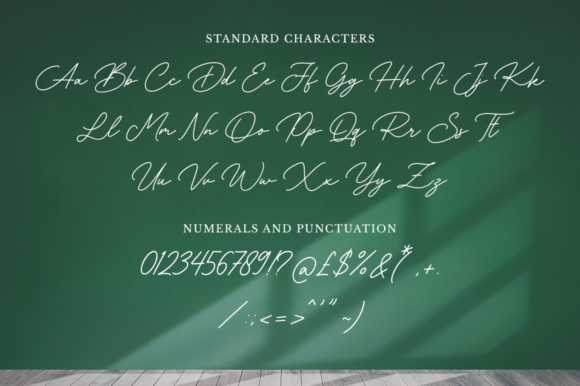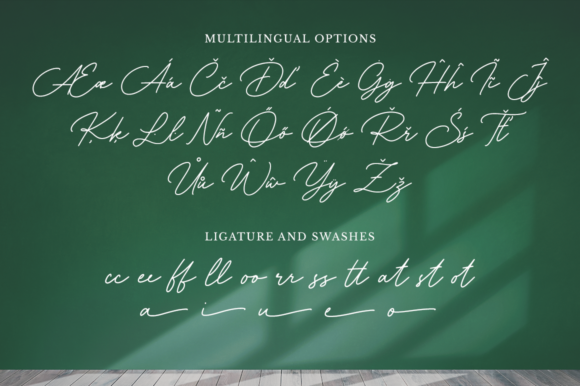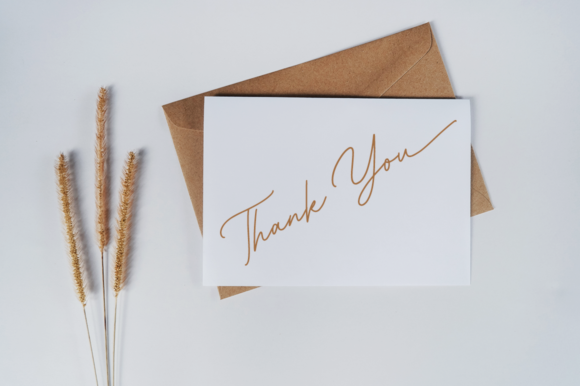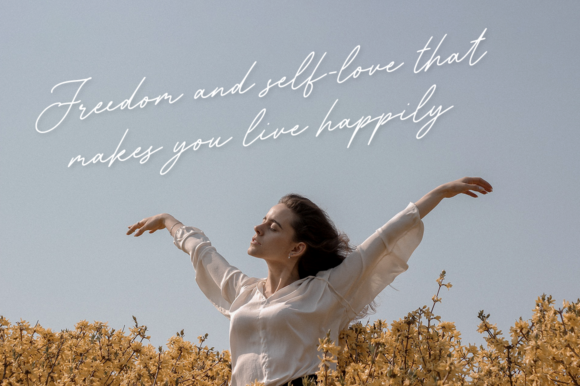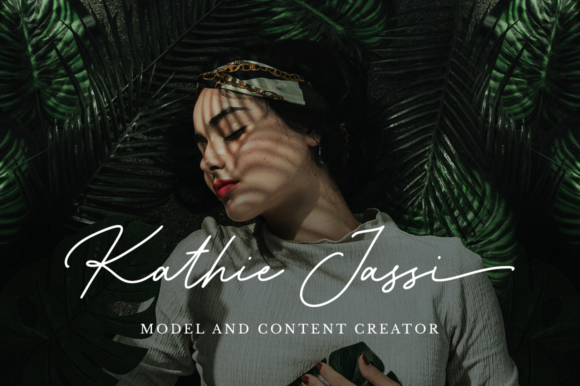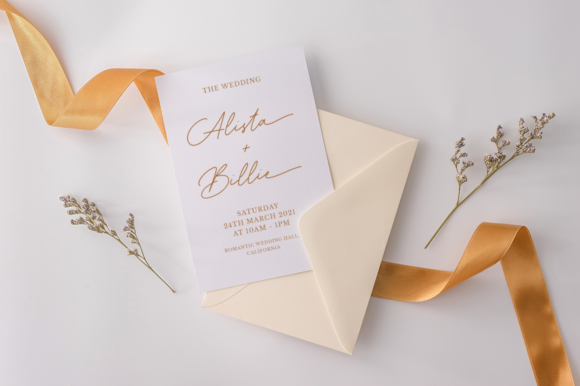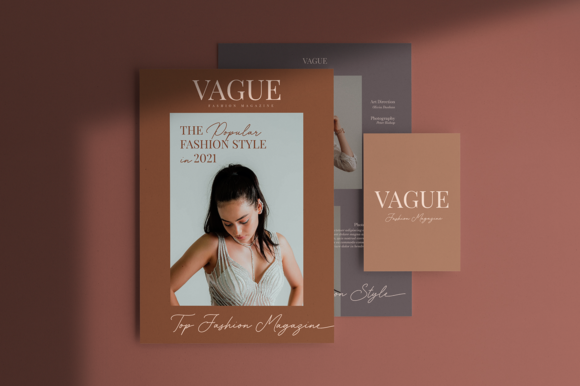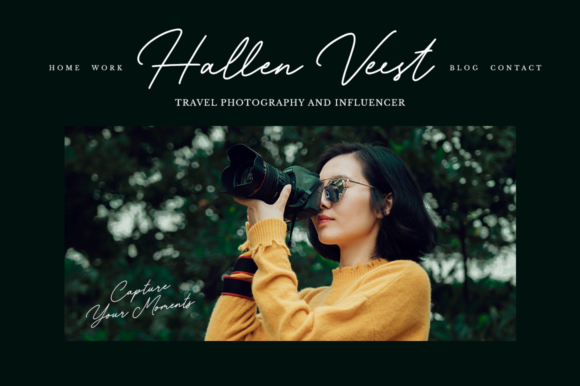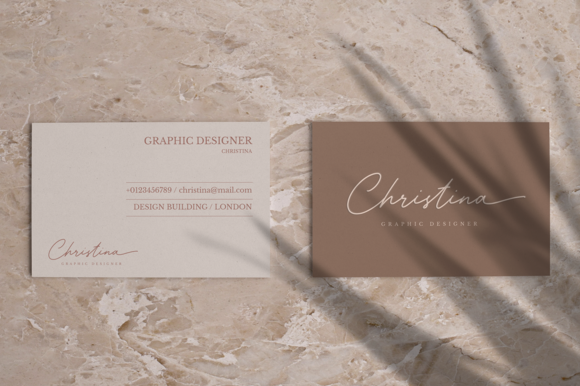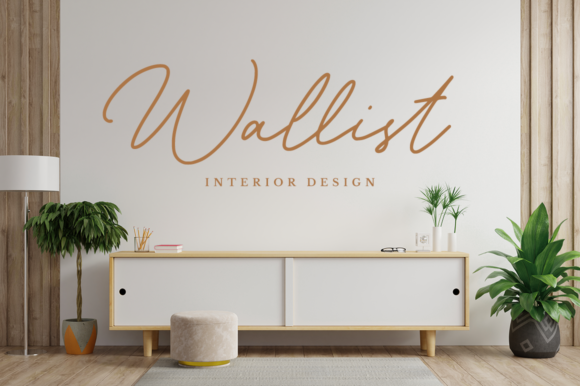
Astallya Font
About Astallya Font
Astallya Script is a captivating and contemporary signature font that seamlessly blends classic calligraphy with a modern twist. Its dancing baseline adds an elegant and stylish touch to your designs, making them stand out with sophistication.
Modern Signature Font: Astallya Script’s modern signature style brings a sense of authenticity and personal touch to your projects. Whether it’s logos, branding, invitations, or any design requiring a signature-like look, the font delivers a trendy and upscale appearance.
Combining Classic Calligraphy: By combining classic calligraphy elements with modern design aesthetics, Astallya Script offers a unique and harmonious balance. This fusion creates a font that is both timeless and fashionable.
Dancing Baseline: The font’s dancing baseline adds a dynamic and flowing quality to your text. It imparts a sense of movement and energy, enhancing the overall elegance and charm of the font.
Elegant and Modern: Astallya Script embodies an elegant and modern feel, making it suitable for a wide range of contemporary design projects. Its versatility ensures it complements various themes and styles.
PUA Encoding: The font’s PUA encoding allows for easy access to its cute glyphs and swashes, giving you the freedom to customize your designs with delightful decorative elements.
Alternate Glyphs and Ligatures: Astallya Script comes with a wealth of special features, including alternate glyphs and ligatures. These variations add further versatility, allowing you to experiment and create unique and eye-catching compositions.
Authentic and Personal: With its signature-like appearance, Astallya Script brings an authentic and personal touch to your designs. It adds a sense of individuality, making your work truly distinct and memorable.
Trendy and Upscale: The font’s contemporary style and sophisticated flair make it ideal for projects that require a trendy and upscale look. It elevates the visual appeal of your designs and communicates a sense of refinement.
Versatile Application: From logos and branding to invitations and social media posts, Astallya Script is a versatile font that fits a wide range of applications. It adapts seamlessly to different design contexts, ensuring consistent elegance across various projects.
In summary, Astallya Script is a modern signature font that combines classic calligraphy with a trendy and elegant twist. Its dancing baseline adds a touch of movement and sophistication to your designs, while the PUA encoding allows easy access to cute glyphs and swashes. With its alternate glyphs and ligatures, you can explore endless design possibilities, making each project uniquely captivating. Whether it’s logos, branding, invitations, or social media graphics, Astallya Script brings an authentic and upscale flair that enhances the beauty and charm of your work.